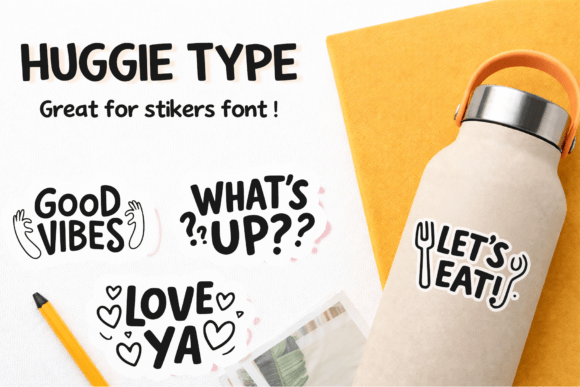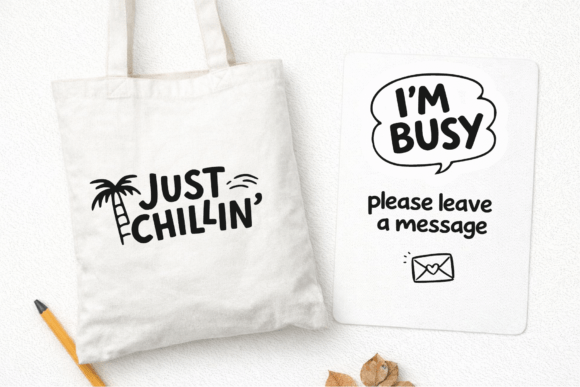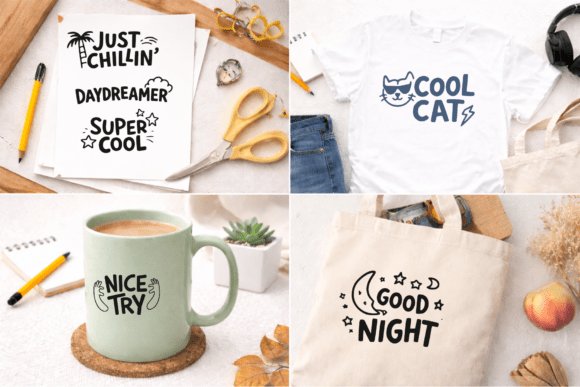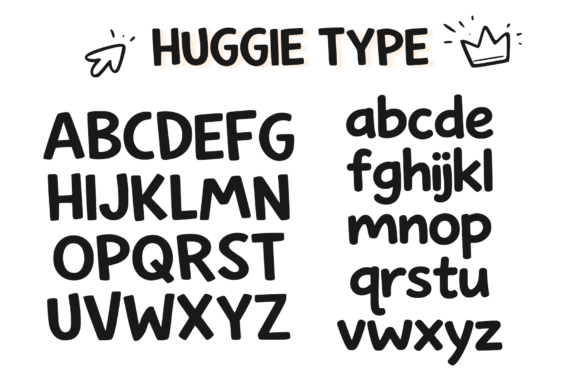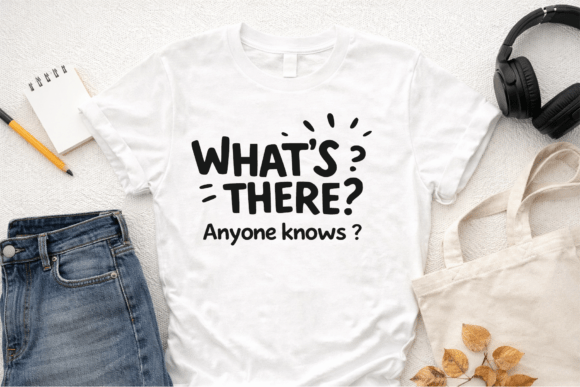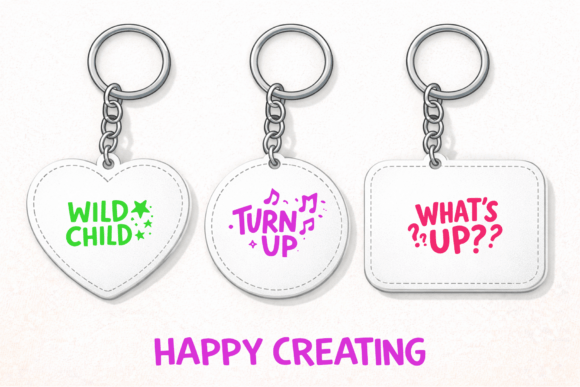
Introduction to Huggie Type Font
Give your designs a warm, fuzzy feeling with the Huggie Type font.
This “cute and friendly handwritten font” is like a big hug on a digital screen, featuring thick, soft strokes and rounded terminals that radiate comfort and approachability The Huggie Type typeface is specifically designed for the “happy” sectors—parenting blogs, kid-friendly apps, and small businesses that want to feel like a neighbor.
Key Features of Huggie Type Font